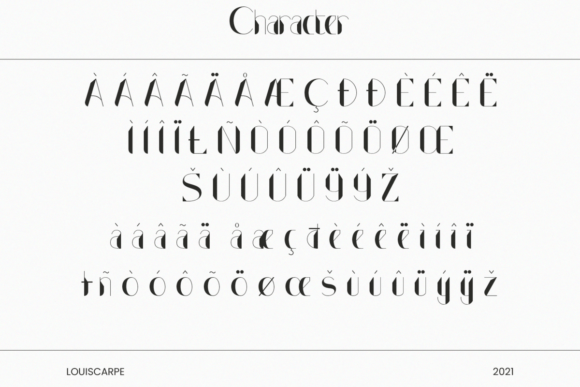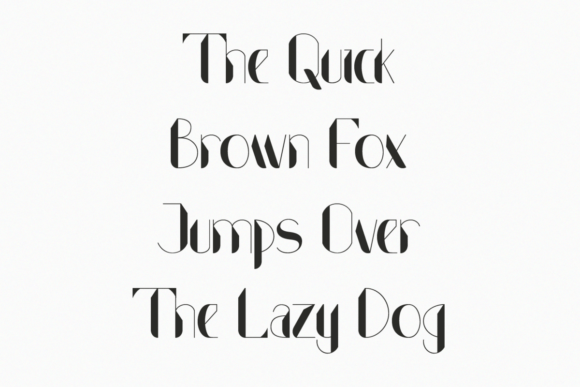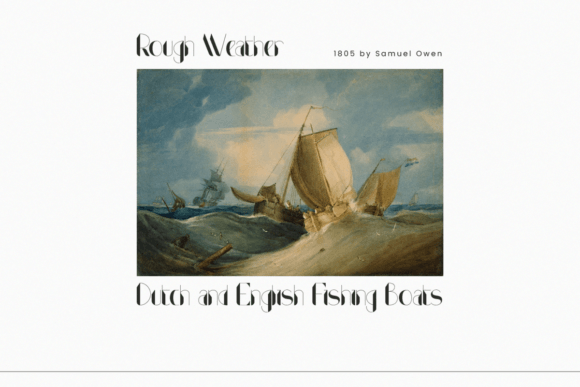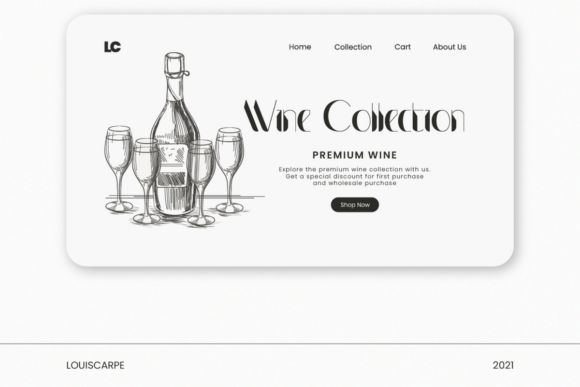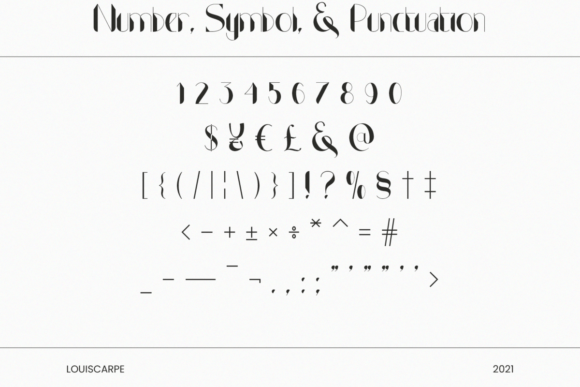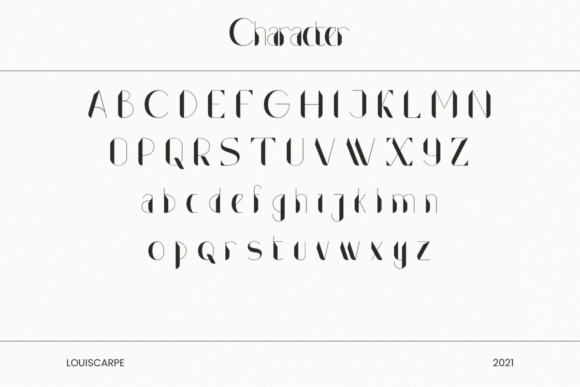
Introduction to Louis Carpe Font
Louis Carpe is a beautifully created modern display font.
It has a unique and stylish appearance that makes it look elegant and classy โLouisCarpeโ will make your design look extraordinary and irresistible.
Key Features of Louis Carpe Font
Why Choose Louis Carpe Font?
Louis Carpe Font offers exceptional quality and versatility, making it a valuable addition to your design toolkit. Whether you’re creating for personal projects or commercial use, Louis Carpe Font delivers professional results.